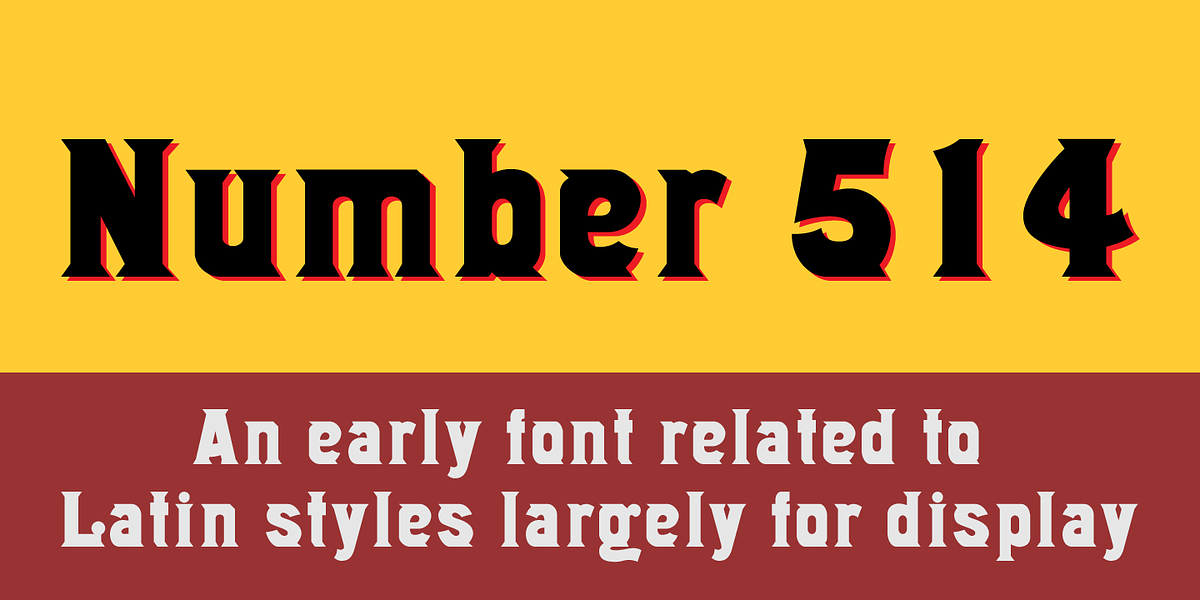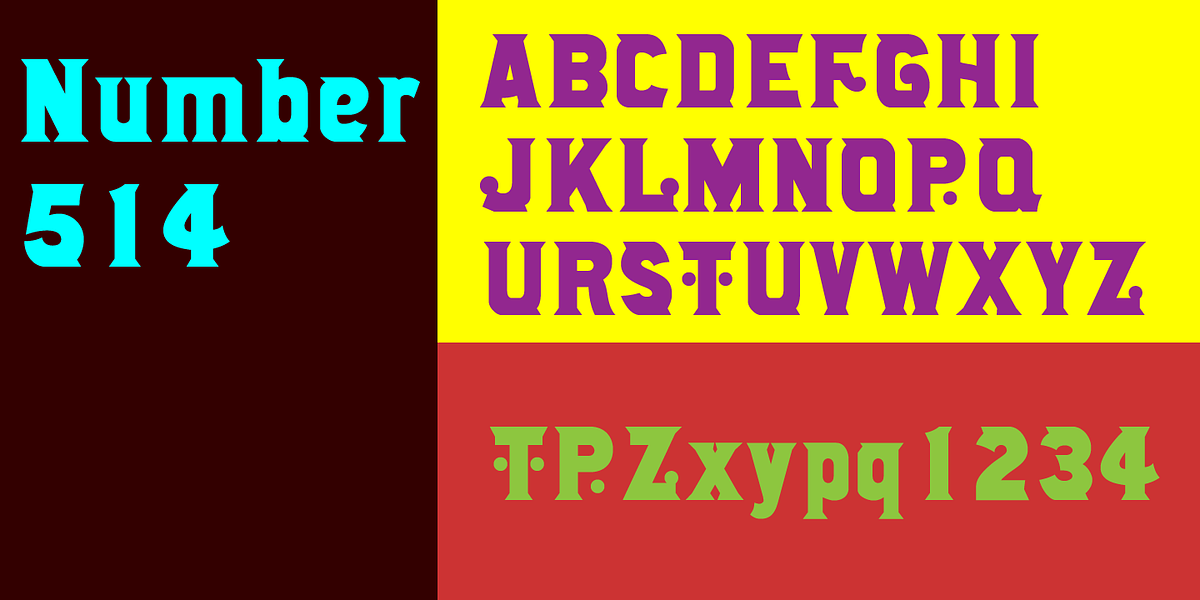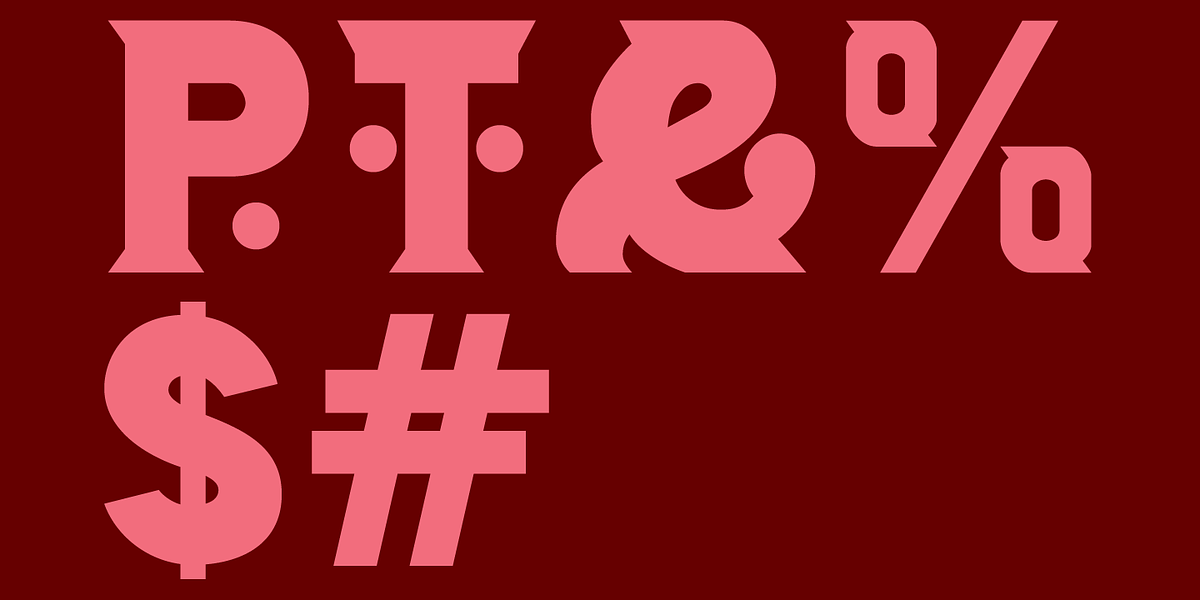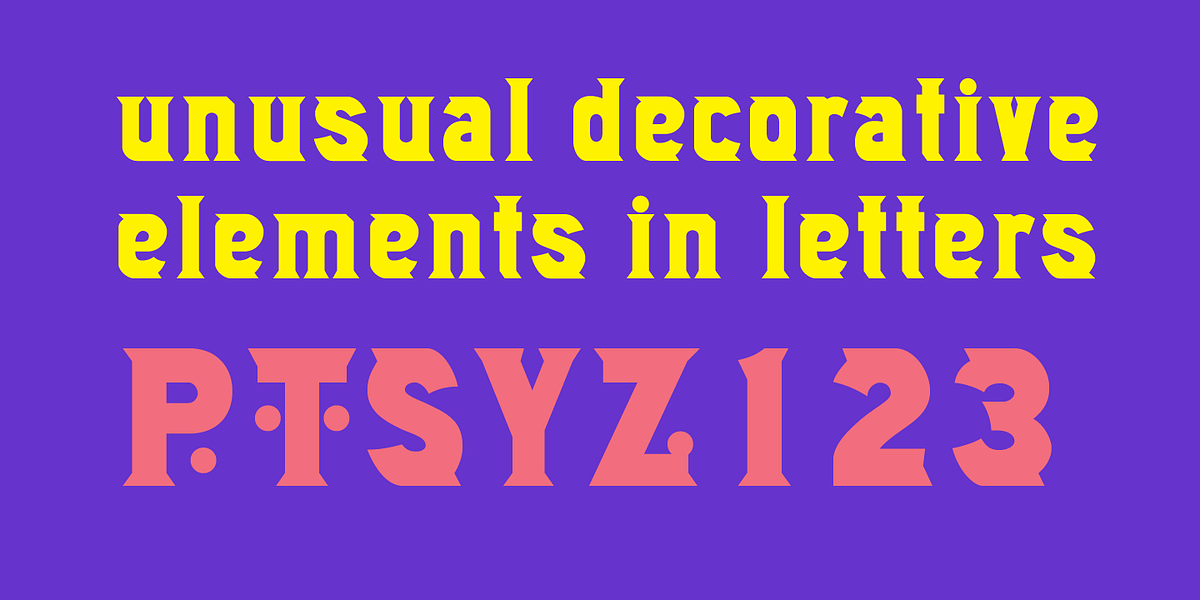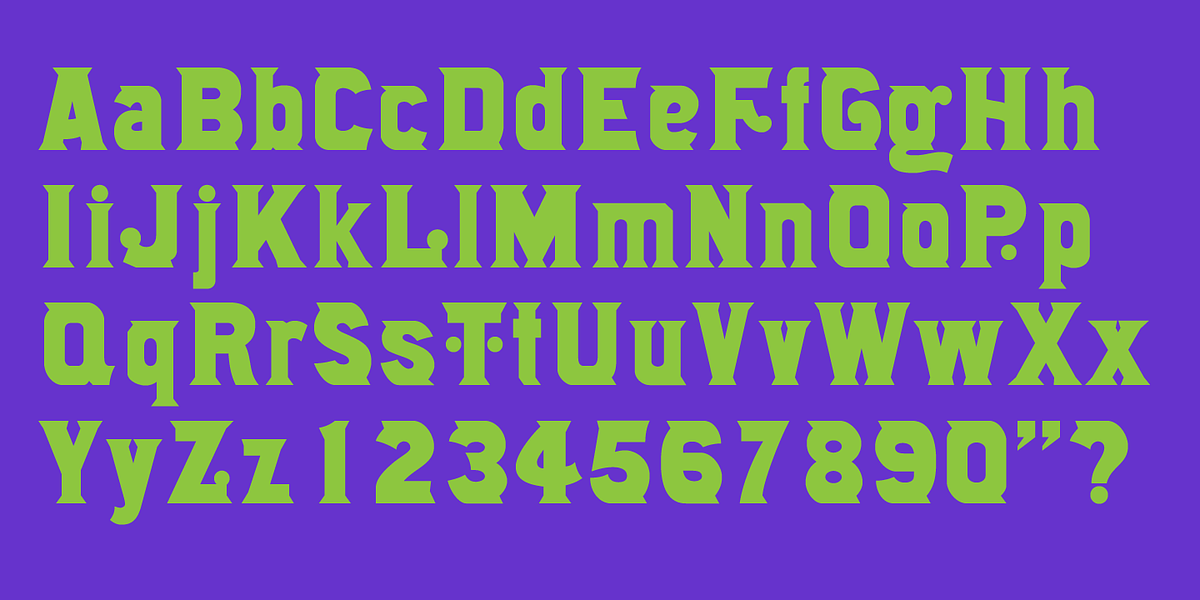
Number514
This font is a bold and unusual display serif with distinctive serifs. It is well-suited for posters and other display applications where a strong visual impact is desired.